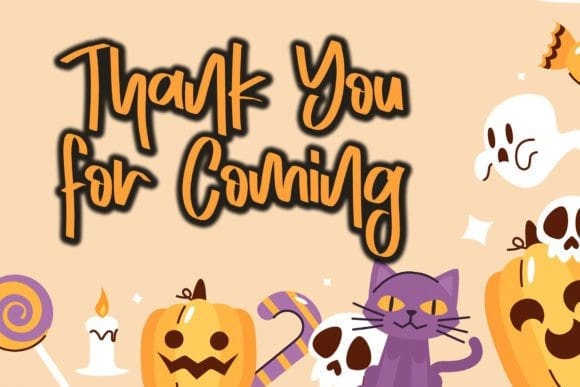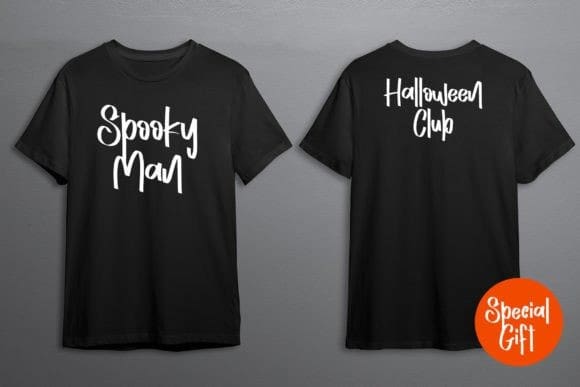
Orange Pumpkin Font
Orange Pumpkin Font is a handwritten display font. It is perfectly suitable for any Halloween-related project or crafty idea! This font is PUA encoded, which means that you can access all of the glyphs with ease!